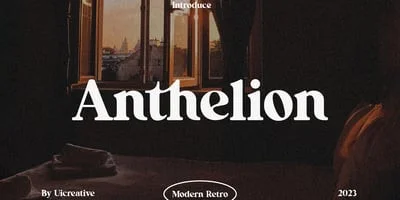
Anthelion Font
Anthelion Font is perfect for atmospheric phenomena research publications, meteorological institute branding, astronomical observation materials, optical illusion art exhibitions, weather pattern documentation, and scientific atmospheric studies communications. Its luminous character makes it ideal for meteorology departments, atmospheric physics research centers, weather forecasting organizations, optical science institutes, and any application requiring ethereal typography that conveys atmospheric mystery, celestial phenomena, and the rare beauty of extraordinary weather and optical atmospheric events.
Anthelion Font is exciting because it captures the ethereal beauty and scientific wonder of rare atmospheric optical phenomena through luminously crafted letterforms that reflect the mysterious interplay of light, moisture, and atmospheric conditions that create anthelions and other spectacular sky displays. Its atmospheric proportions and optical details evoke the awe-inspiring moments when nature creates rainbow-like phenomena opposite the sun, making it perfect for organizations studying atmospheric science and celestial optics. The font's atmospheric character transforms text into expressions of meteorological wonder.
Anthelion Font family includes atmospherically-inspired weight variations typically featuring Light, Regular, Medium, and Bold options with luminous styling that maintains scientific authenticity. The family often incorporates atmospheric symbols, optical elements, and weather-related characters designed for meteorological applications, providing designers with comprehensive tools for creating authentic, atmospheric science-focused typographic compositions.
When selecting atmospheric science typography solutions, Anthelion Font represents an exceptional choice for meteorological and optical science projects. This ethereal typeface brings instant atmospheric authenticity to any design, making it invaluable for weather research institutions, atmospheric scientists, and educational organizations celebrating meteorological phenomena. Whether you're developing weather research materials, creating atmospheric science education content, or designing meteorological conference presentations, Anthelion Font provides the atmospheric mystery and scientific authenticity essential for communicating rare weather phenomena in today's climate-focused scientific research marketplace.